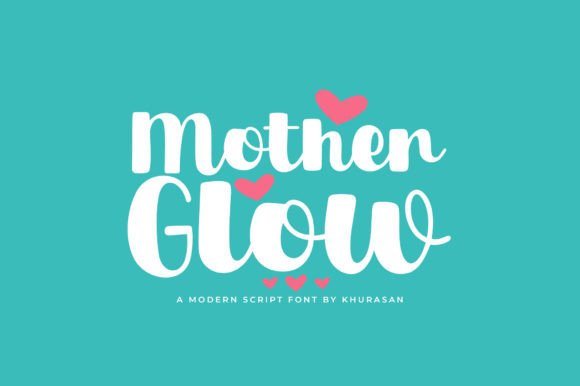
Mother Glow Font: The Perfect Addition to Your Creative Projects
In the world of graphic design, fonts play a crucial role in bringing a creative vision to life. A well-chosen font can elevate a design, convey a message, and even evoke emotions. If you’re a designer, artist, or DIY enthusiast looking for a modern and cute script font to add a touch of personality to your projects, look no further than Mother Glow Font. In this article, we’ll explore the features and benefits of Mother Glow Font, and how it can be used to create stunning designs for various applications.
What is Mother Glow Font?
Mother Glow Font is a modern script font designed to bring a touch of warmth and playfulness to your designs. Its cute and elegant lettering makes it perfect for a wide range of creative projects, from posters and logos to magazines, book covers, banners, and more. With its unique and eye-catching style, Mother Glow Font is sure to make your designs stand out from the crowd.
Key Features of Mother Glow Font
- Modern and Cute Script Font: Mother Glow Font boasts a fresh and contemporary design that’s perfect for designs that require a touch of whimsy and playfulness.
- Highly Versatile: This font can be used for a wide range of projects, including posters, logos, magazines, book covers, banners, and more.
- Elegant Lettering: Mother Glow Font features elegant and flowing lettering that’s sure to add a touch of sophistication to your designs.
- Easily Customizable: This font can be easily paired with a wide range of other fonts and design elements to create a unique look that suits your creative vision.
Use Cases for Mother Glow Font
Mother Glow Font is an incredibly versatile font that can be used for a wide range of creative projects. Here are some use cases to get you started:
1. Posters and Flyers
Mother Glow Font is perfect for creating eye-catching posters and flyers that require a touch of personality. Use it to promote events, products, or services, and watch your designs stand out from the crowd.
2. Logos and Branding
If you’re looking for a font to use in your logo or branding materials, Mother Glow Font is an excellent choice. Its elegant and modern design makes it perfect for businesses that want to convey a sense of sophistication and playfulness.
3. Magazines and Book Covers
Mother Glow Font is also suitable for use in magazines and book covers. Its flowing lettering and elegant design make it perfect for titles, headings, and other design elements that require a touch of whimsy and personality.
4. Banners and Signs
Whether you’re creating a banner for a website, social media, or a physical sign, Mother Glow Font is an excellent choice. Its bold and eye-catching design makes it perfect for grabbing attention and conveying a message.
Benefits of Using Mother Glow Font
So, why should you choose Mother Glow Font for your creative projects? Here are some benefits to consider:
1. Unique and Eye-Catching Design
Mother Glow Font features a unique and eye-catching design that’s sure to make your designs stand out from the crowd.
2. Highly Versatile
This font can be used for a wide range of projects, making it an excellent addition to your font library.
3. Easy to Customize
Mother Glow Font can be easily paired with other fonts and design elements to create a unique look that suits your creative vision.
4. Time-Saving
With Mother Glow Font, you can save time and effort in your design process. Its elegant and modern design makes it easy to create stunning designs without starting from scratch.
In conclusion, Mother Glow Font is a modern and cute script font that’s perfect for adding a touch of personality to your creative projects. Its highly versatile design makes it suitable for a wide range of applications, from posters and logos to magazines and book covers. With its elegant and modern design, Mother Glow Font is sure to make your designs stand out from the crowd. So why wait? Download Mother Glow Font today and start creating stunning designs that showcase your creativity!